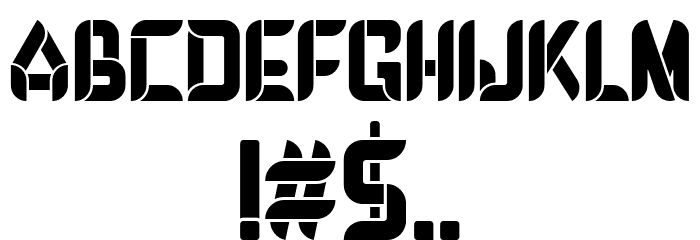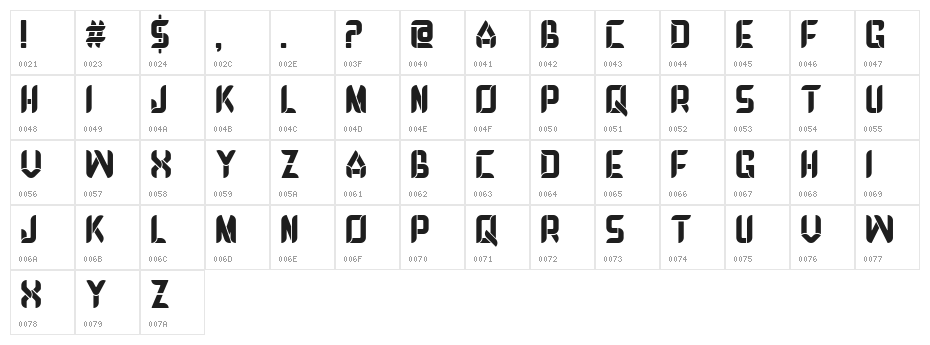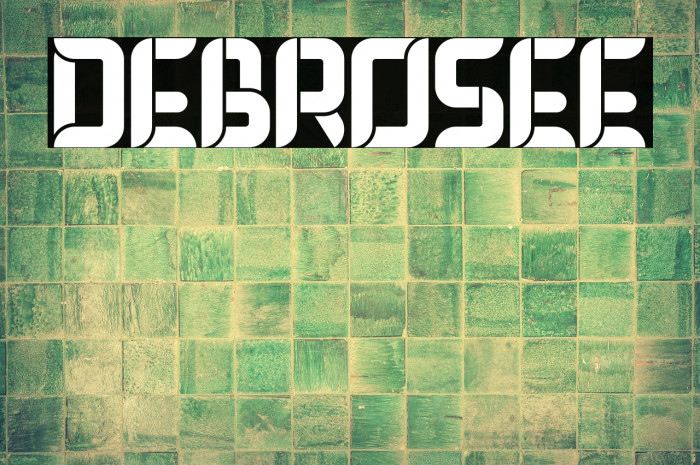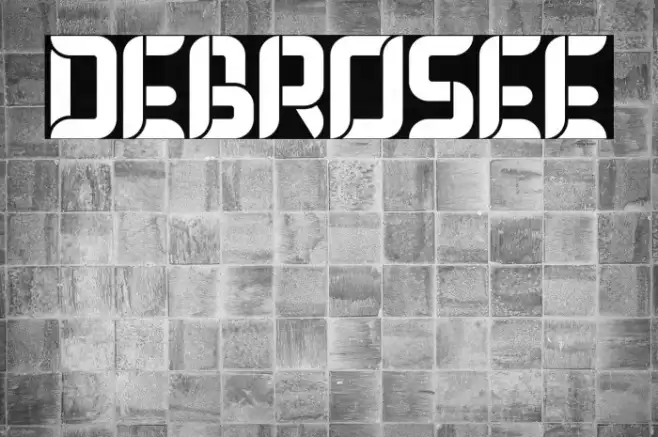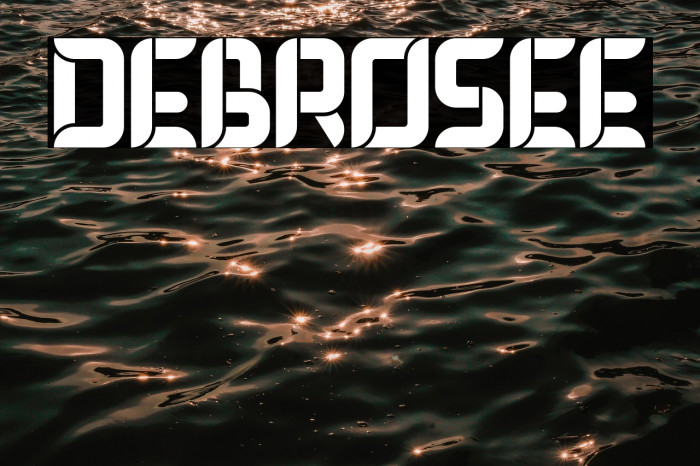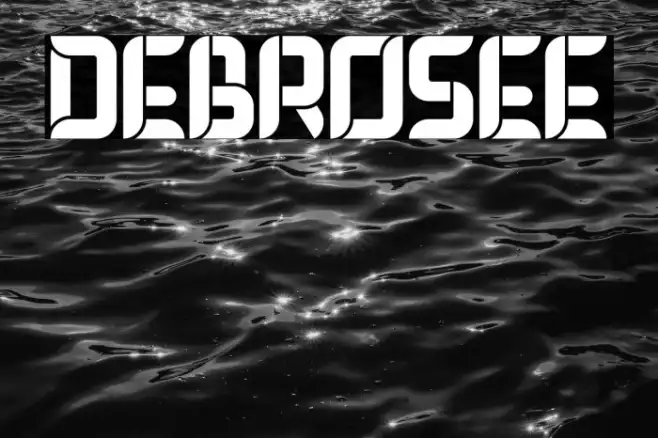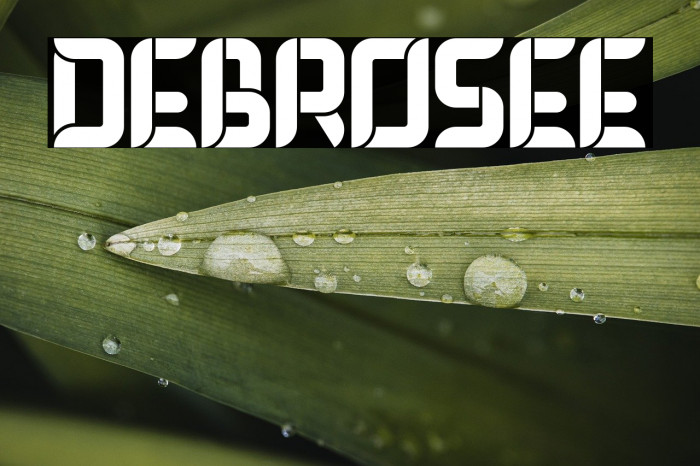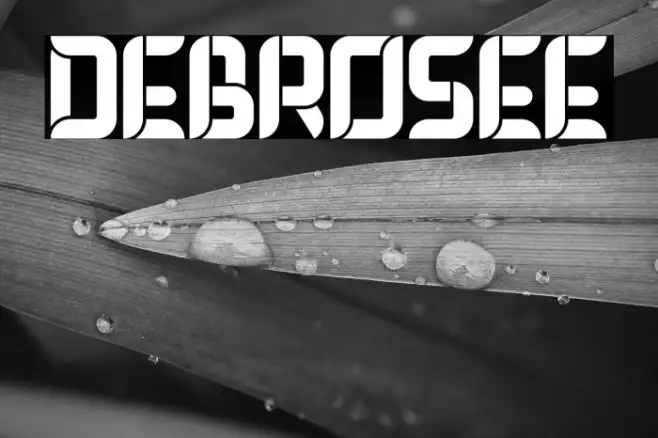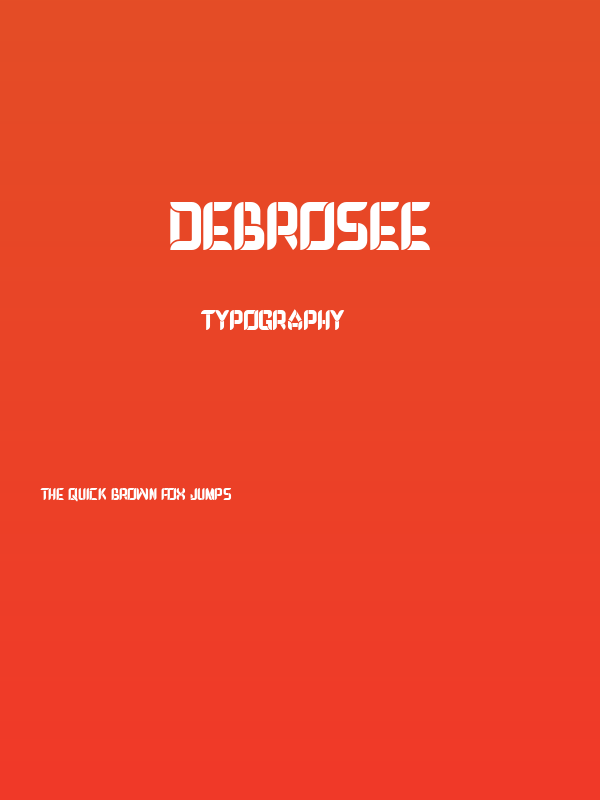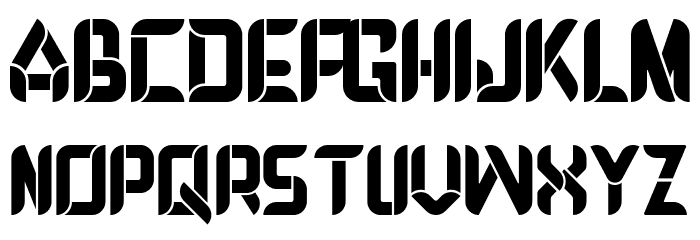
DEBROSEE Font
DEBROSEE Description
This font features a bold, geometric design with a futuristic and industrial aesthetic. The characters are constructed with thick, angular strokes and sharp edges, creating a sense of strength and modernity. The use of negative space within the letters adds an intriguing visual complexity, making each character stand out. The font's style is consistent across uppercase and lowercase letters, as well as numbers and special characters, maintaining a cohesive look. Its unique design makes it suitable for projects that aim to convey innovation, technology, or a cutting-edge feel.
| Proposed Projects | Ideal for technology branding, sci-fi posters, video game titles, and modern logos. |